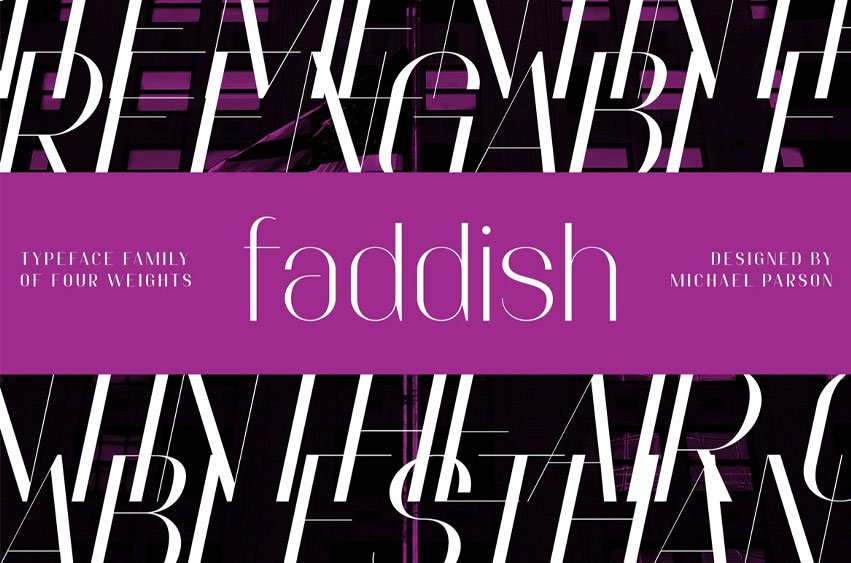
Faddish Font is a high contrast, condensed typeface family destined for use in headlines, titles or other display settings. Bridging the world of sans and contrasted serif styles, it aims to evoke a world of luxury and high-end fashion with a strong form and open shapes.
The family is composed of seven weights and their accompanying italics and employ Opentype features to offer a choice of glyphs and numerals to best suit each setting. Available as static Opentype (OTF) fonts or as a single Variable (TTF VAR) font that equally allows to manual setting of either the weight or italic slant.